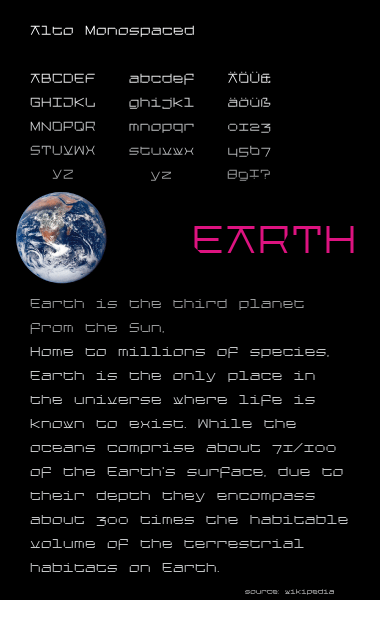
Alto Monospaced
guentersen
A Monospaced font. I developed this from my Anna63Alto Font.
I like your fonts. The slants you choose for the rounded letters give it an energy that's quite distinctive.
And by the way a pleasing monospaced as well!
very very good.
i especially like your solutions for "A", "V", "w","v", they fit surprisingly well.
but... that "6" is strange :)
anyway, this is at least a 9!
I fumbled a little with the numbers ... I think the six kix' now ;)